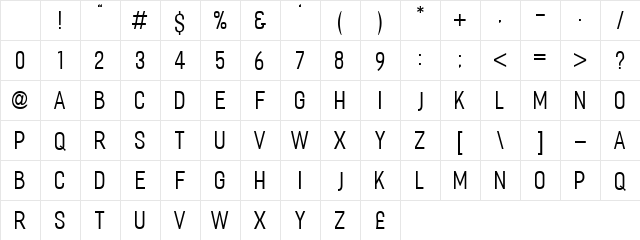
Fester is a composed and adaptable typeface that performs quietly and consistently across a wide range of design contexts. Its narrow stance lets it pack a punch even in space-constrained designs.